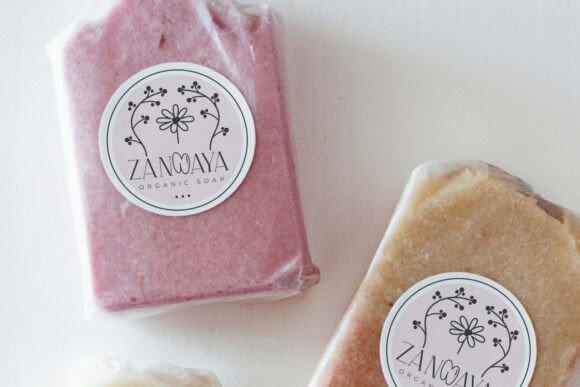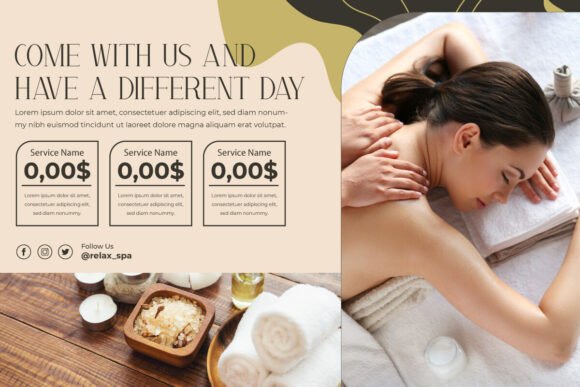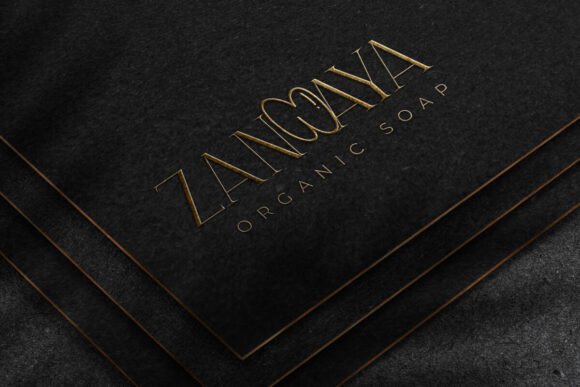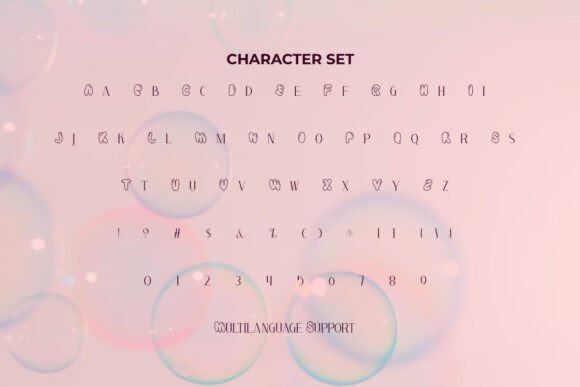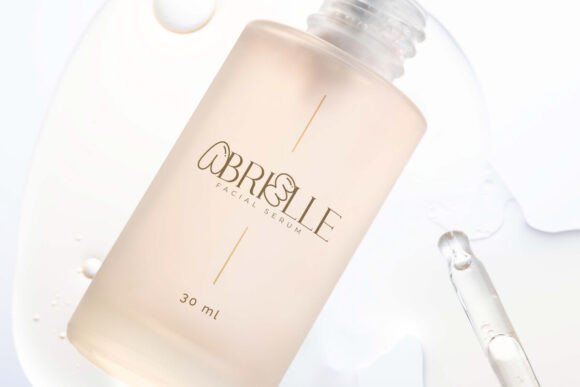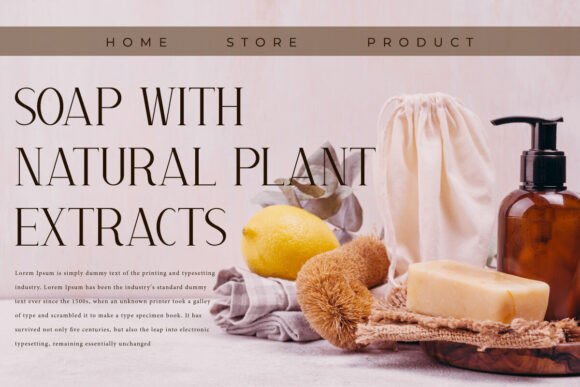
Get Ready to Pop with Creativity
Have you ever been brainstorming ideas for a new project, and suddenly a burst of inspiration hits you? That’s exactly what happens when you need a font that’s as playful as it is professional. Imagine a font that brings a smile to your face and adds a touch of whimsy to your designs.
Enter Bring Bubble Font, a charming font duo that’s perfect for adding a dash of fun to your next project. This delightful font features two distinct display characters: a cartoon type with bubbles and a serif option. Whether you’re creating a brand image, custom design, or invitation, Bring Bubble Font is sure to bring a sense of joy and playfulness to your work.
As a designer, you know that the right font can make all the difference in making your designs stand out. That’s why Bring Bubble Font is a valuable addition to your toolkit – it’s the perfect way to add a touch of personality and whimsy to your work, making it truly unforgettable.
Bubble Font Key Features
- Unique Characteristics: The Bubble Font features a distinctive, playful design with rounded bubbles and smooth connections, making it ideal for children’s books, educational materials, and creative projects.
Bring Bubble Font Review
Overall, I’m a bit divided about this font. On one hand, it has its unique charm and can add a playful touch to certain designs ✨. The rounded, bubbly shapes are quite eye-catching, and I can see it working well in children’s books, party invitations, or even social media graphics.
- Highly customizable – it’s easy to adjust the size, color, and spacing of the text
- Great for adding a touch of whimsy and fun to a design
- Works well in bold and large sizes, making it perfect for headings and titles
However, there are also some limitations I’ve encountered:
- It can be quite difficult to read in small sizes or at a distance, especially for body text
- The bubbly shape can be overwhelming if used too much, so it’s best to use it sparingly
- Not ideal for formal or professional designs, as it may come across as too playful or childish ⚠️
Overall, I think Bring Bubble Font is a great choice for designs that need a fun and playful touch. Just be sure to use it in moderation and pair it with a clear, readable font for body text.
The Bring Bubble Font is ideal for:
- Creatives and designers looking for a unique, playful font.
- Businesses and organizations seeking a fun and engaging brand voice.
- Designers working on children’s products, party invitations, or social media graphics.
Alternatives to “Bring Bubble Font”
Great Vibes Font is a modern, elegant script font that works well for headings, titles, and short paragraphs. It is ideal for designs that require a touch of sophistication and whimsy. Great Vibes Font has a more refined and polished look compared to Bring Bubble Font, making it suitable for high-end branding and marketing materials.
Pacifico Font is a beautiful, cursive font that is perfect for designs that need a relaxed, beachy vibe. It is ideal for websites, social media, and marketing materials that target a younger audience. Pacifico Font has a more laid-back and casual look compared to Bring Bubble Font, making it suitable for designs that require a friendly and approachable tone.